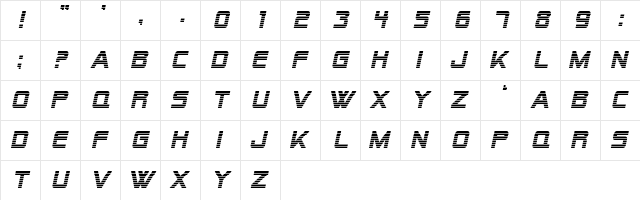
SF Alien Encounters Italic
Design Context for SF Alien Encounters Typeface
SF Alien Encounters offers clean, dependable letterforms without strong stylistic allegiance, making it a practical choice for designers who need flexibility. The slanted form adds forward momentum and visual energy.